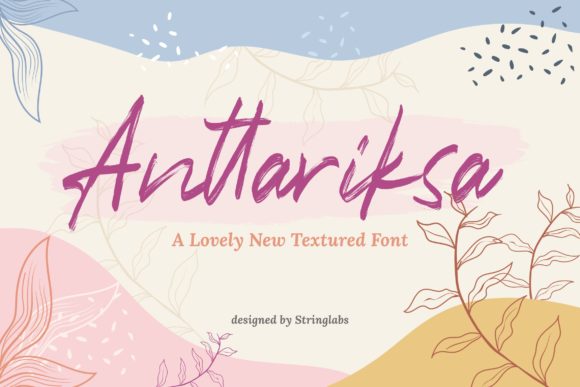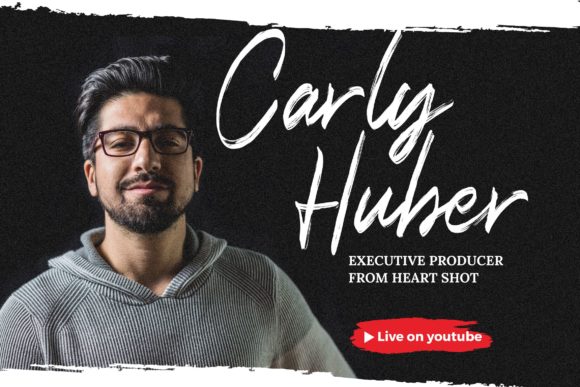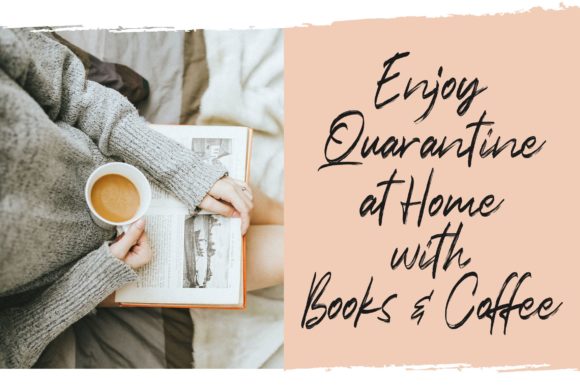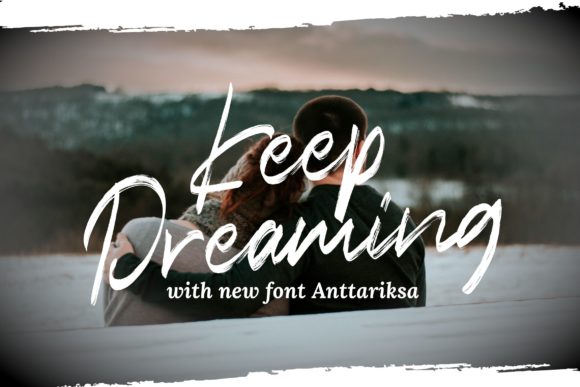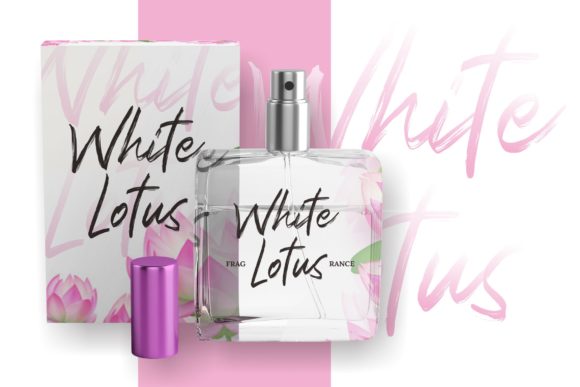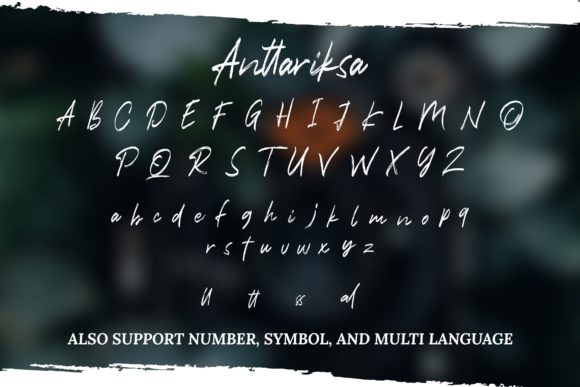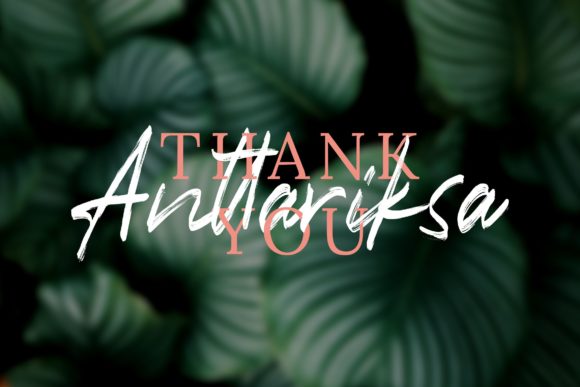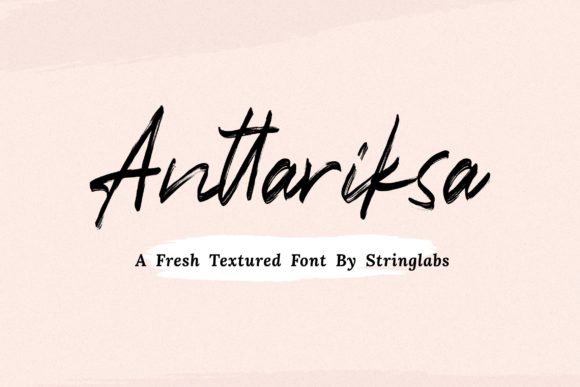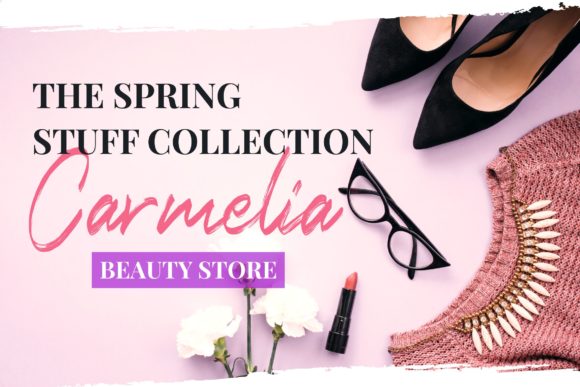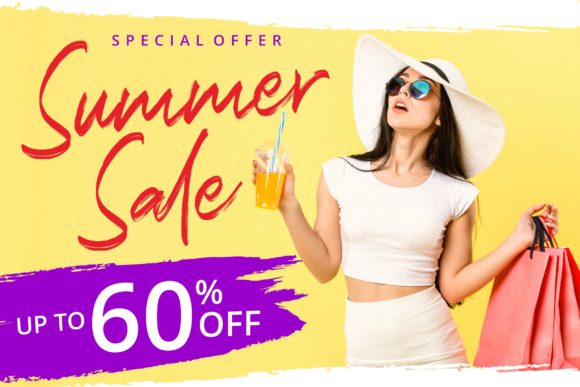
Anttariksa Font
About Anttariksa Font
Anttariksa is a casual, fun script font, created by using a brush pen. Clean and a little bit quirky, this font is the perfect fit for all of your logos, branding, social media, and crafty DIY projects.